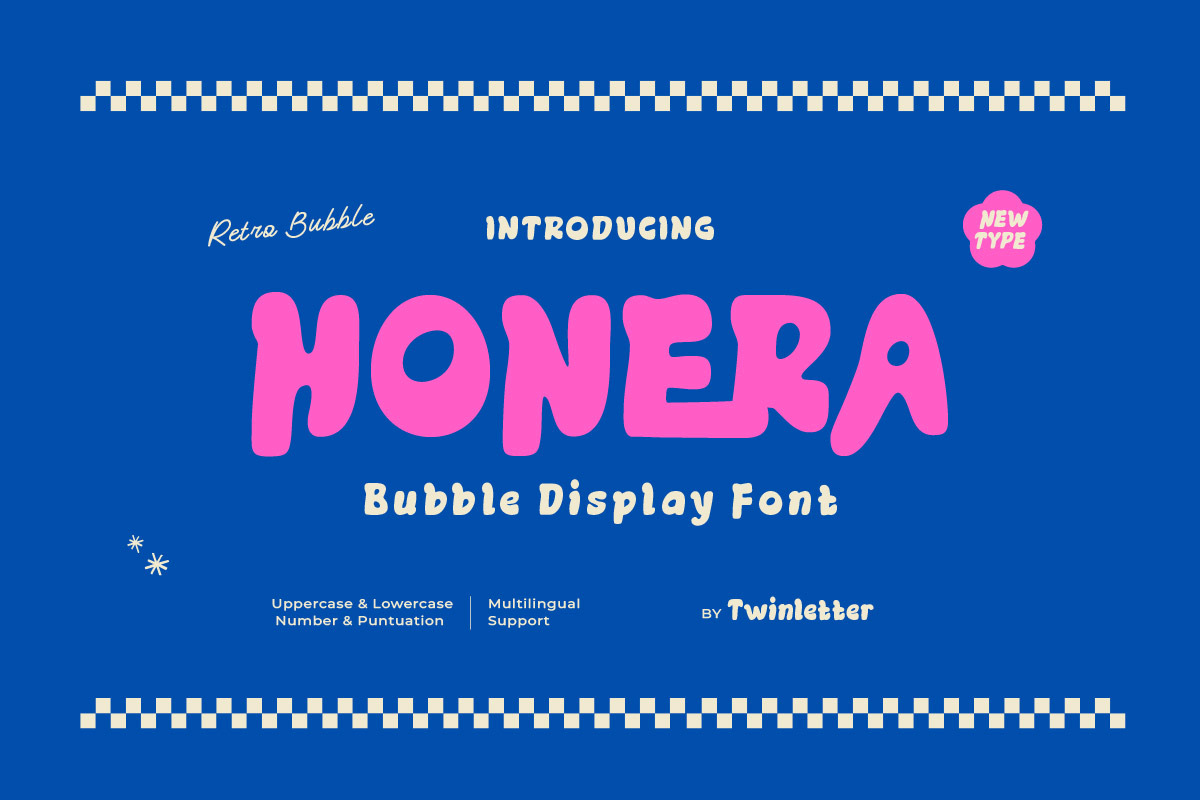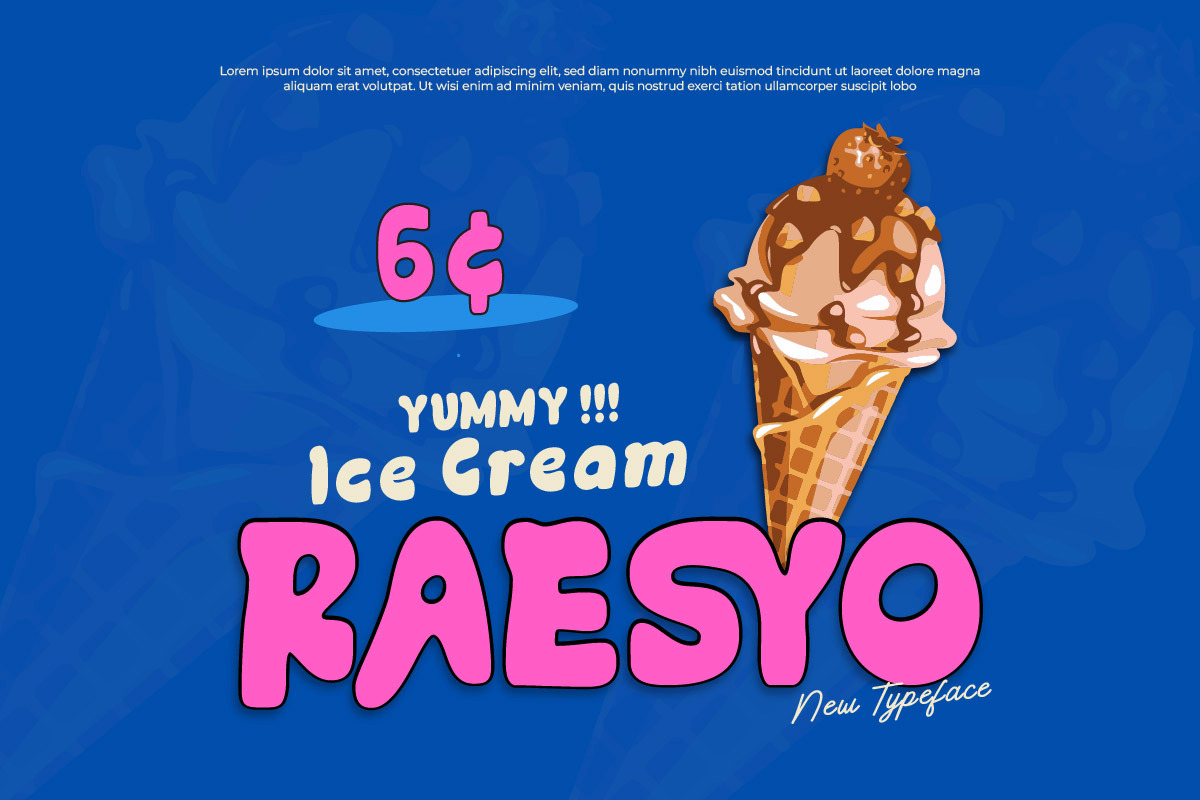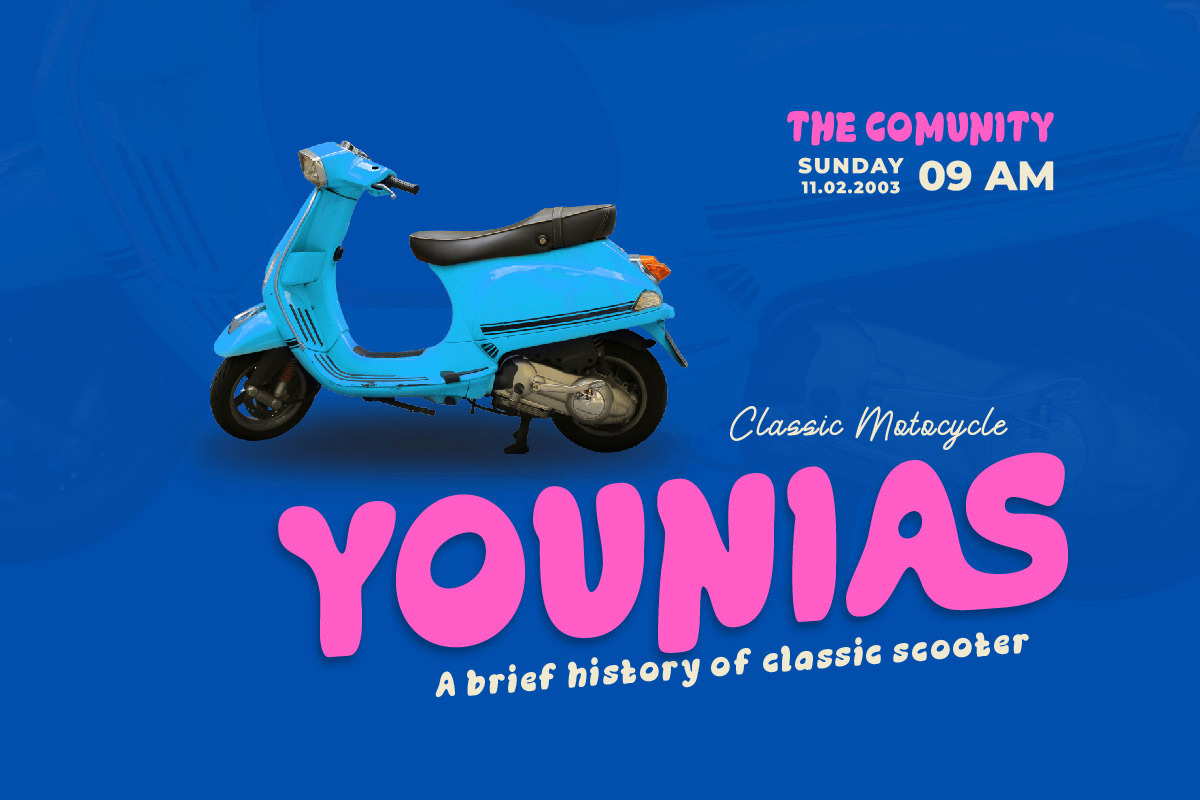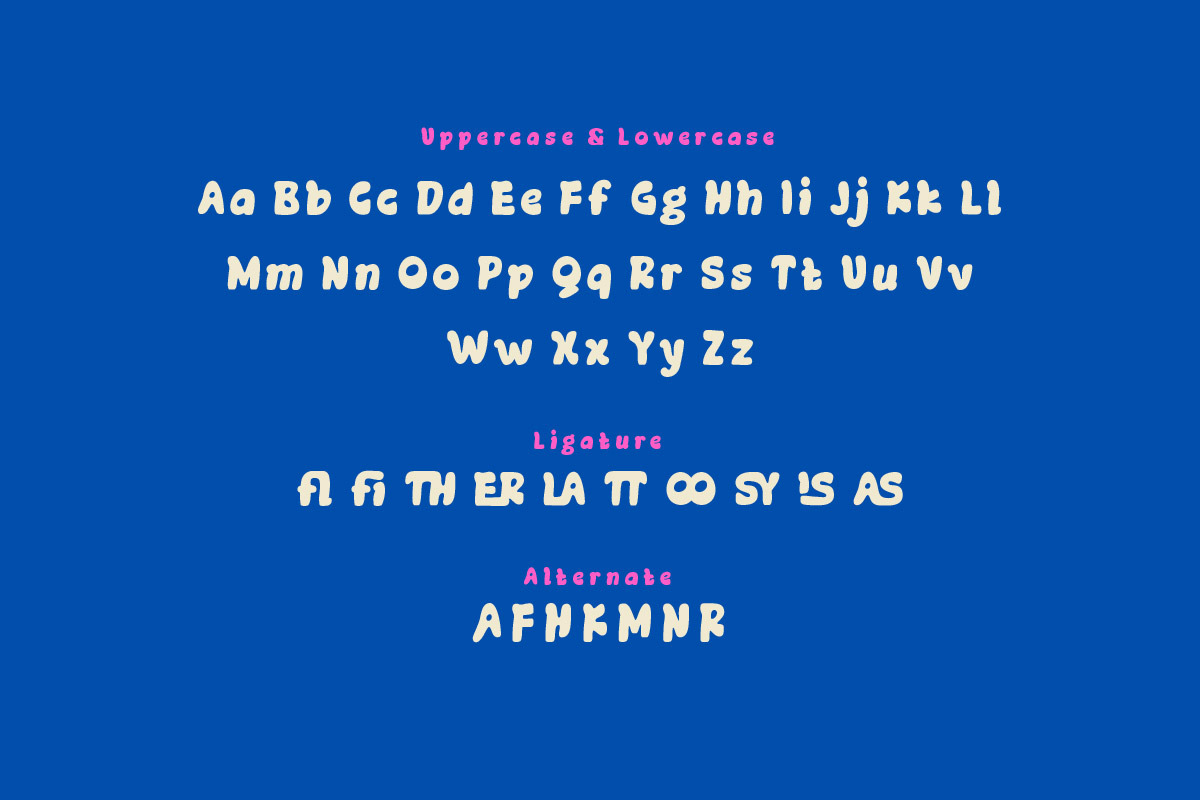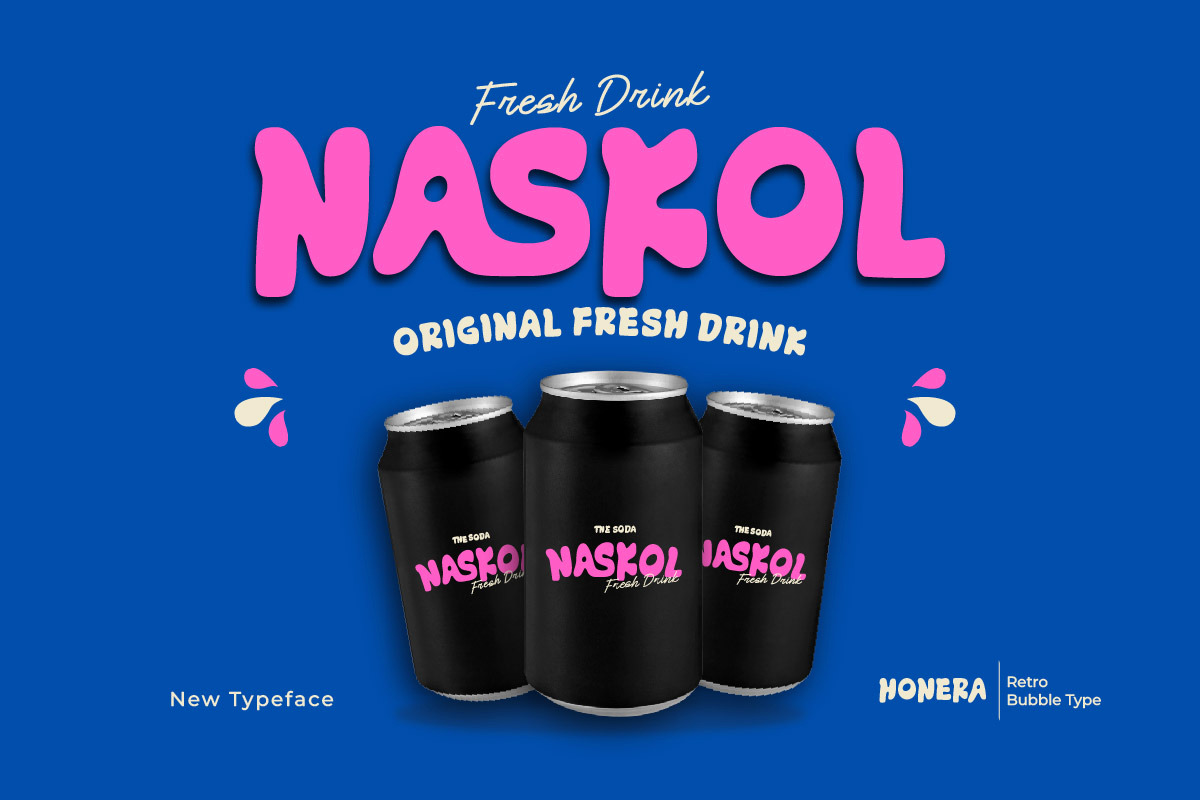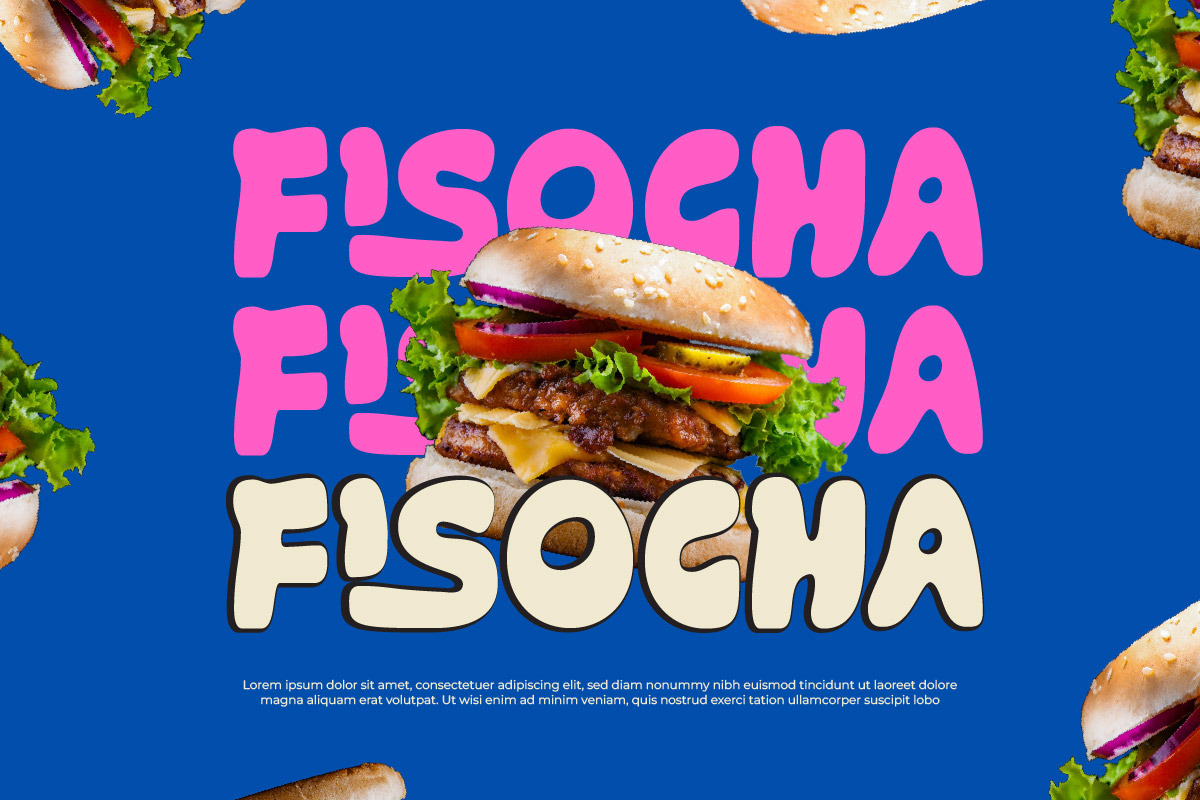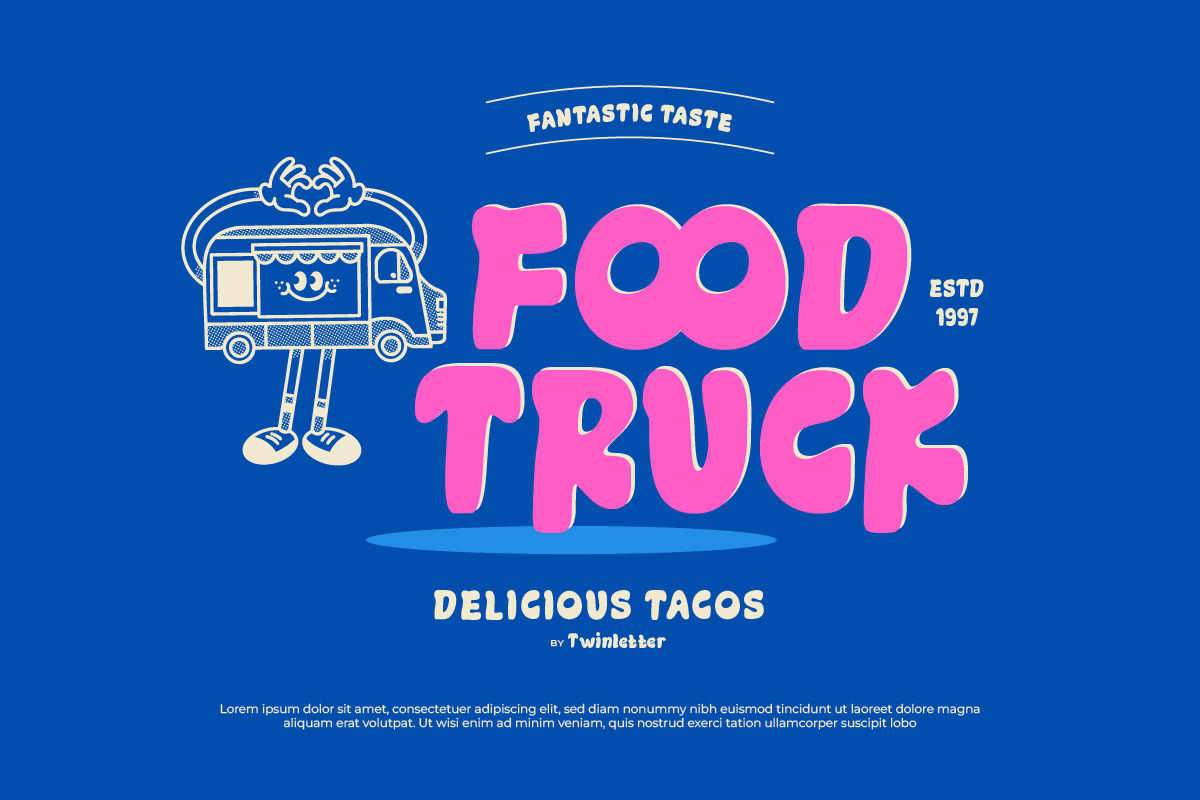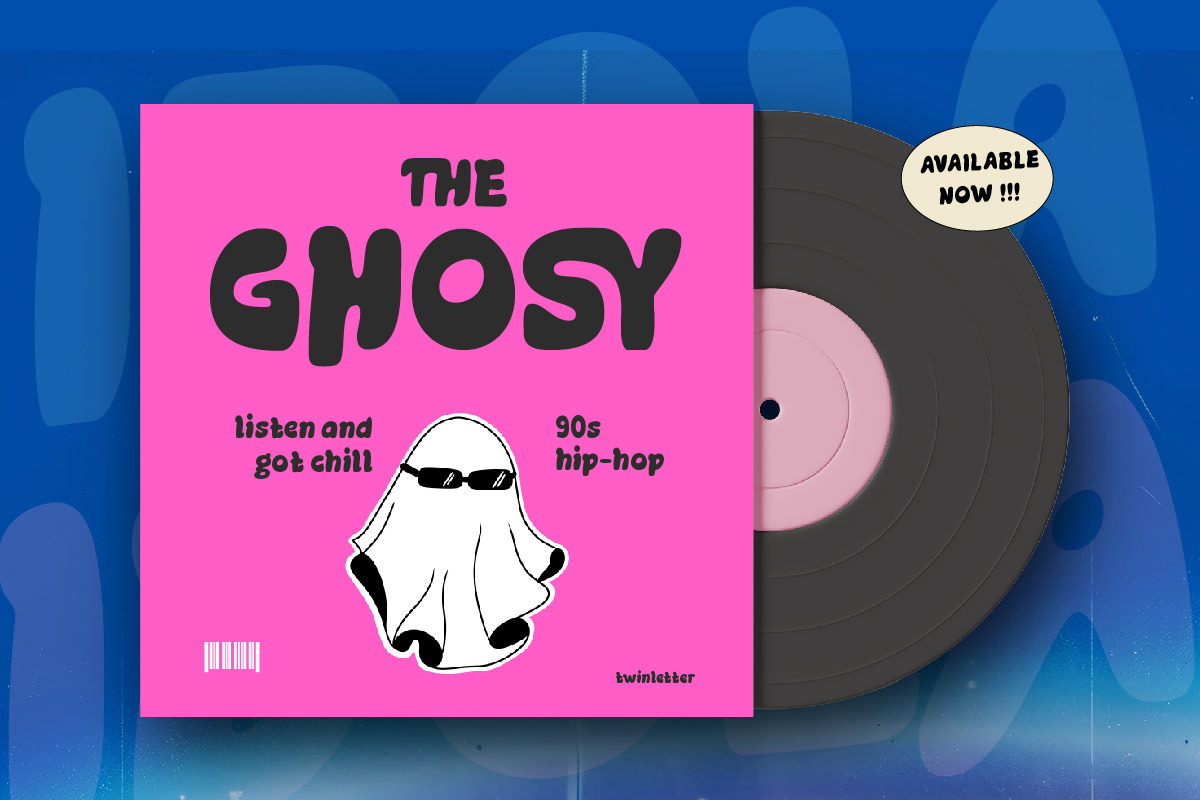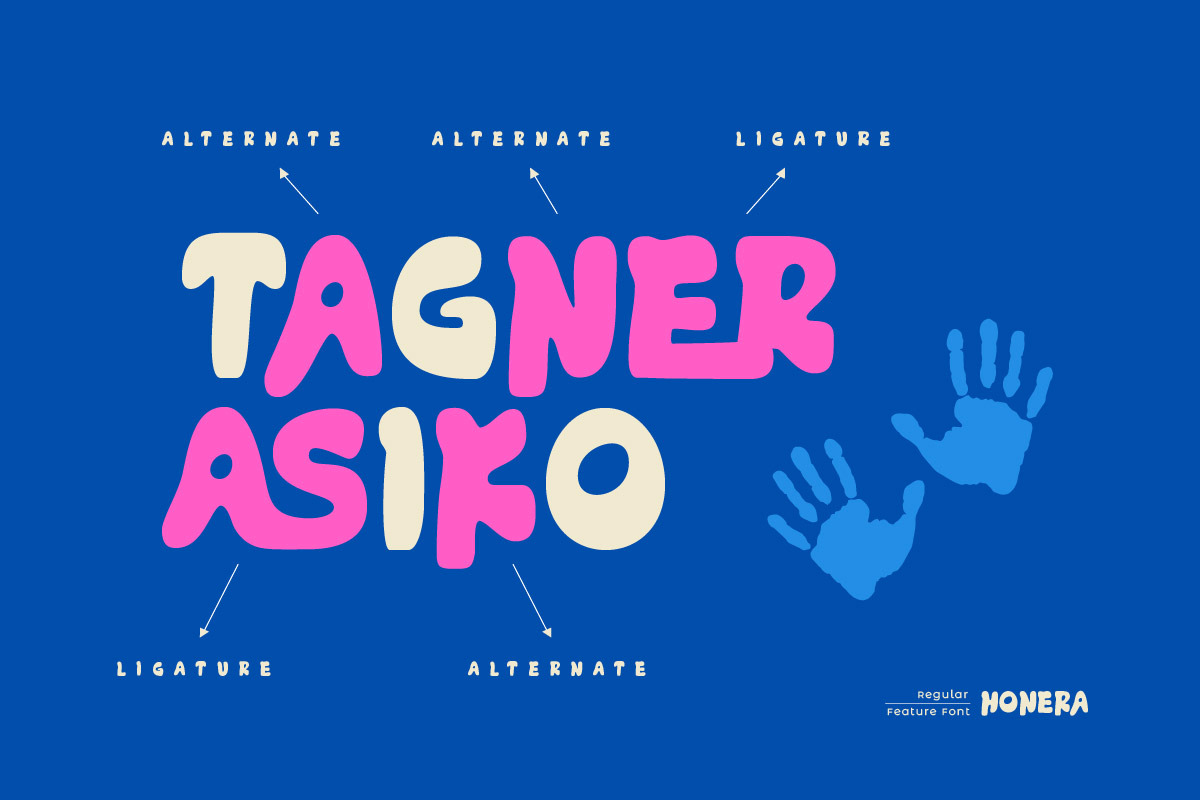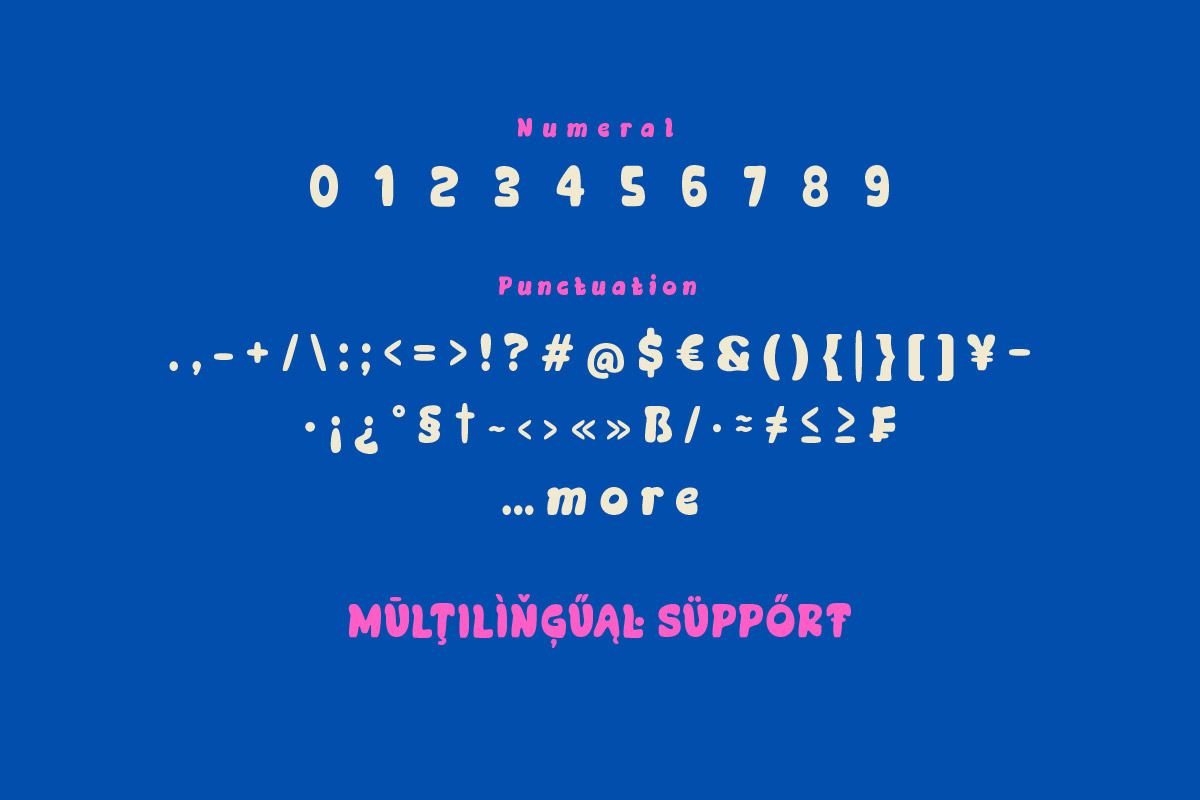
Honera - Bubble Display Font
Prepare to make waves with Honera, the powerhouse bubble display font that refuses to be ignored. Bold, dynamic, and unapologetically strong, Honera commands attention with its thick, robust shape and playful personality. Whether you're branding a cutting-edge startup, designing eye-catching logos, or crafting attention-grabbing headlines, Honera delivers impact in every letter. Its rounded forms exude energy and enthusiasm, injecting a sense of fun and vitality into your designs. Embrace the boldness of Honera and unleash your creativity with confidence. Let your designs burst with character and charm, powered by the irresistible allure of Honera.